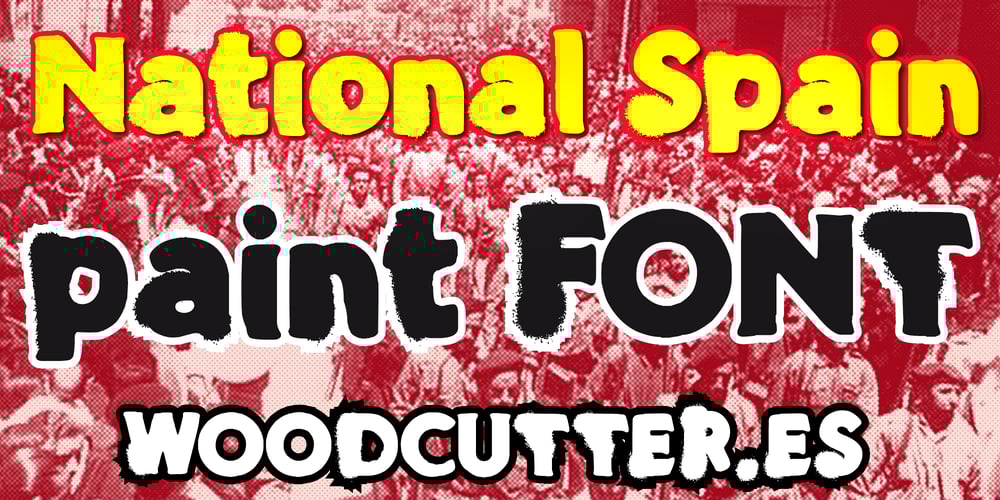
National Spain Font Family was designed by Jordi Manero and published by Woodcutter. National Spain contains 1 styles and family package options. “National Spain” is a typeface that combines lowercase and uppercase letters with an imperfect style, as if the ink had run while writing. This effect gives the font a unique, handcrafted character, perfect for projects looking to convey a sense of nostalgia or authenticity. Its worn and manual appearance adds a touch of warmth and humanity, making it perfect for designs requiring a rustic and original touch. It’s ideal for posters, logos, or any design that needs a typeface with personality.